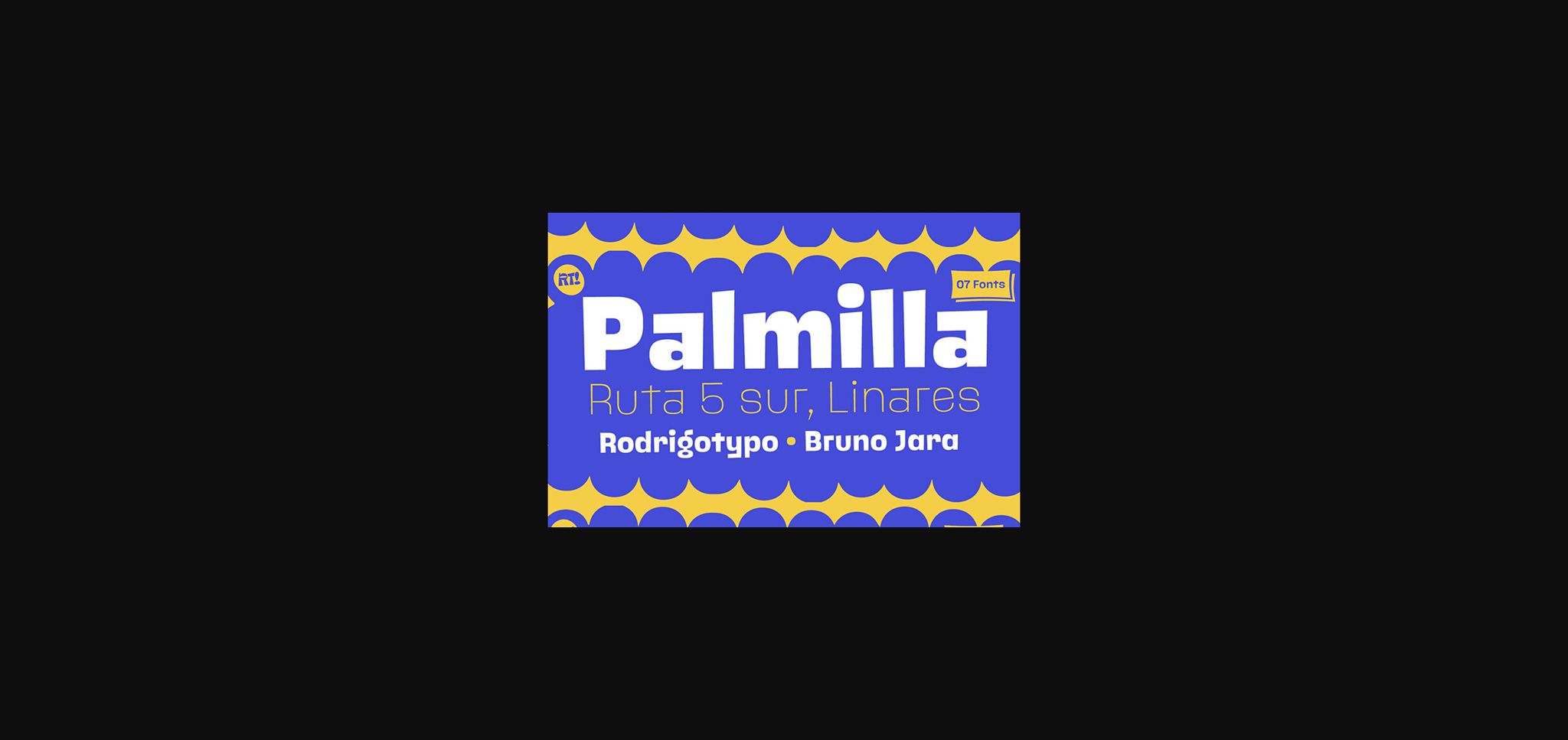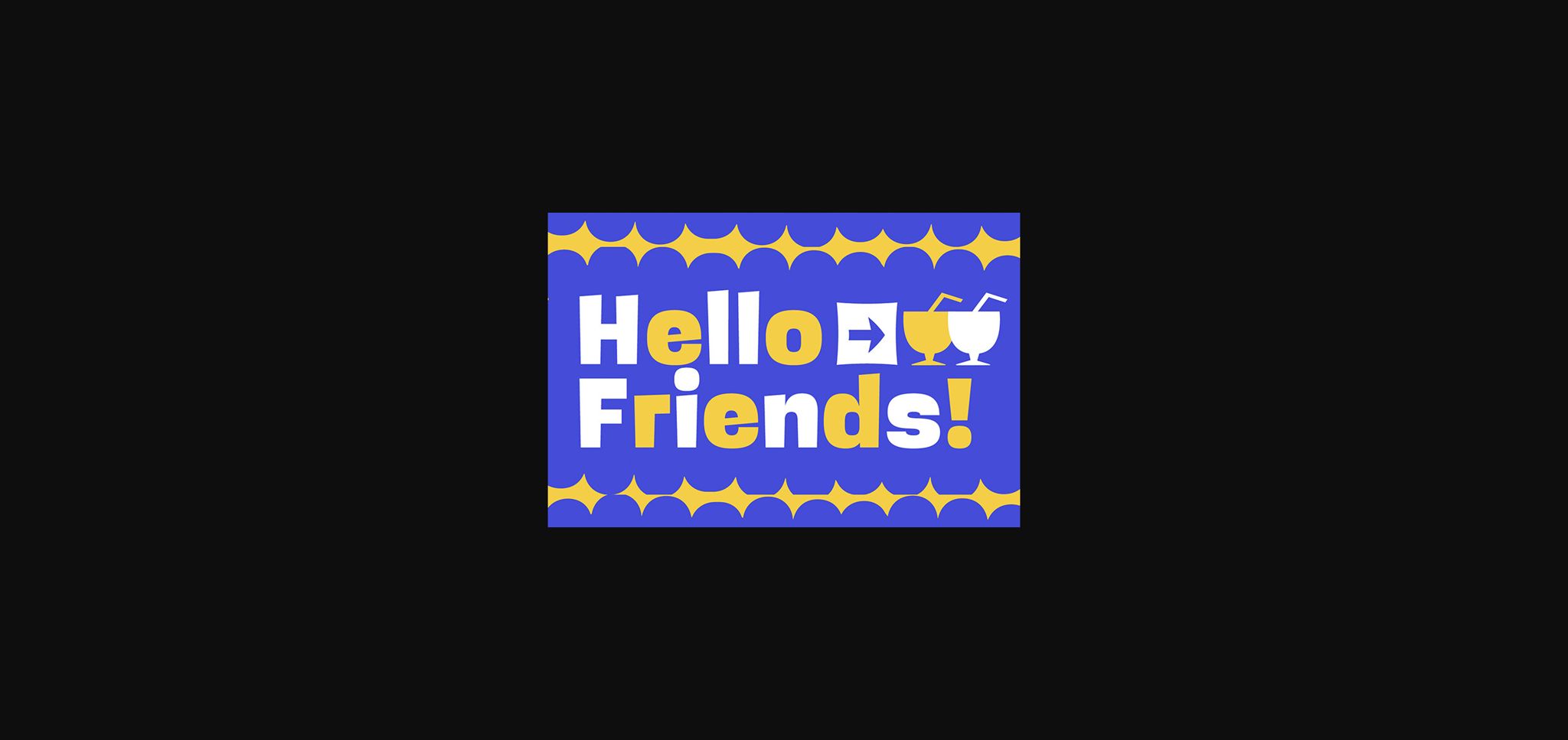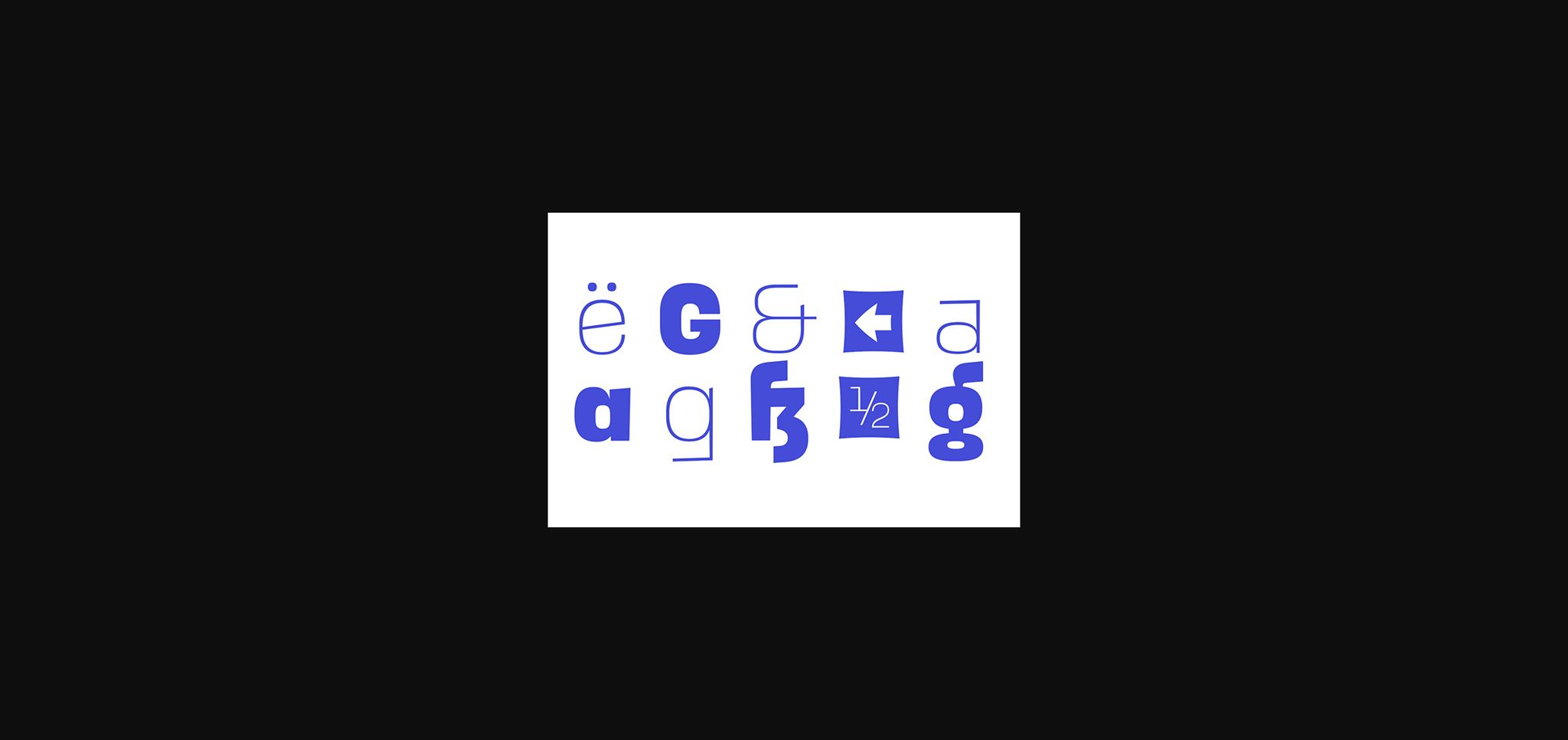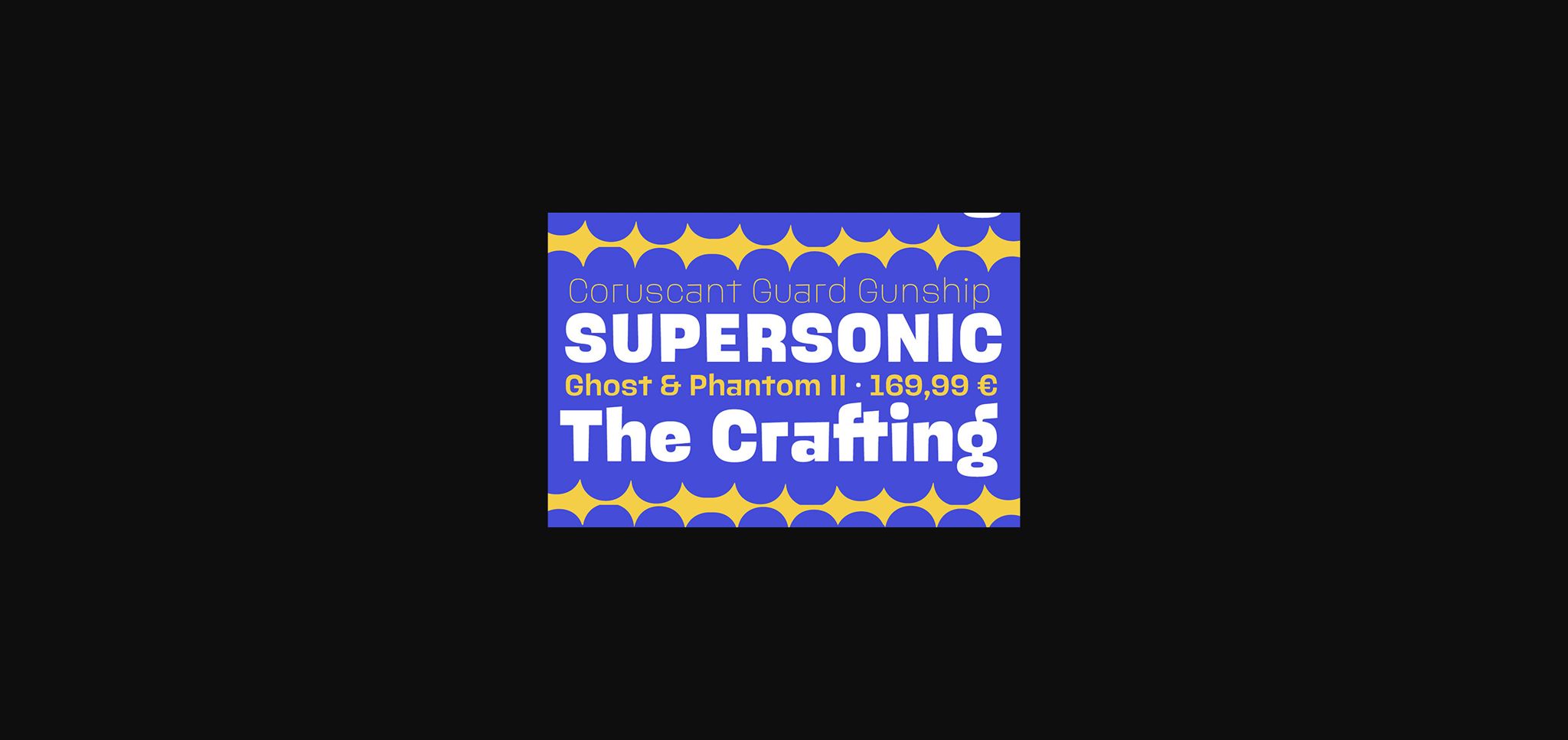
About Palmilla Font
Palmilla is a very gestural Sans font that contains 7 fonts (Thin, Light, Regular, Medium, Bold, and Black as well as a set of dingbats, it is perfect for informal or children’s titles, and it contains many Alternatives such as Ligatures, to have more options at the time of writing.